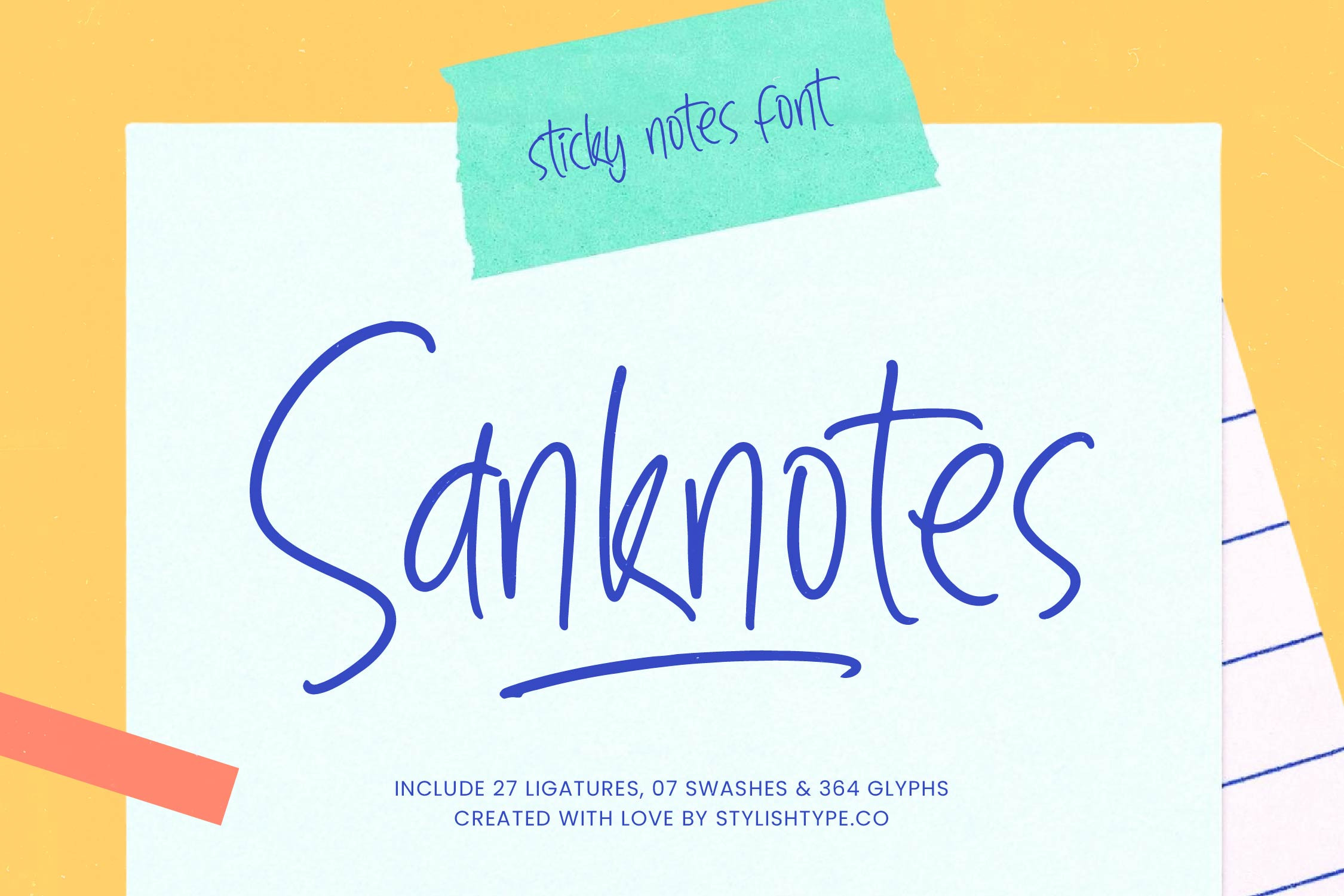
Sanknotes - Sticky Notes Font
Sanknotes - Sticky Notes Font , Capture the essence of genuine human connection in your digital designs with a tool that balances charm and utility. Sanknotes - Sticky Notes Font is a premium handwritten script that masterfully replicates the authentic texture and flow of a marker on paper. This monoline aesthetic provides a sense of approachable charm, making it an essential asset for creators who want to inject organic personality into their work while maintaining professional clarity and readability.
Expand your brand's reach with a typeface designed for a world without borders and diverse linguistic needs. With its extensive multilingual support, Sanknotes - Sticky Notes Font adapts seamlessly across global markets, making it incredibly versatile for international projects. This global compatibility ensures that your creative vision remains coherent and powerful, allowing for a unified brand identity that resonates with diverse audiences across the globe without technical limitations.
Unlock superior creative control through a rich library of specialized typographic assets that offer a handcrafted feel. Featuring an impressive collection of 364 glyphs, Sanknotes - Sticky Notes Font includes 27 ligatures and 7 expressive swashes that allow for a truly customized look. These advanced features enable designers to craft fluid compositions that feel unique and handmade, ensuring that every headline and quote stands out with a polished, high-end finish.
Elevate your visual storytelling with a font that excels in high-impact, modern environments. This versatile typeface is the perfect choice for lifestyle branding, product packaging, editorial layouts, and engaging social media content. Sanknotes - Sticky Notes Font is particularly effective for modern marketing campaigns that demand a friendly and relatable aesthetic. Its clean lines and dynamic rhythm make it an indispensable asset for any contemporary design toolkit.